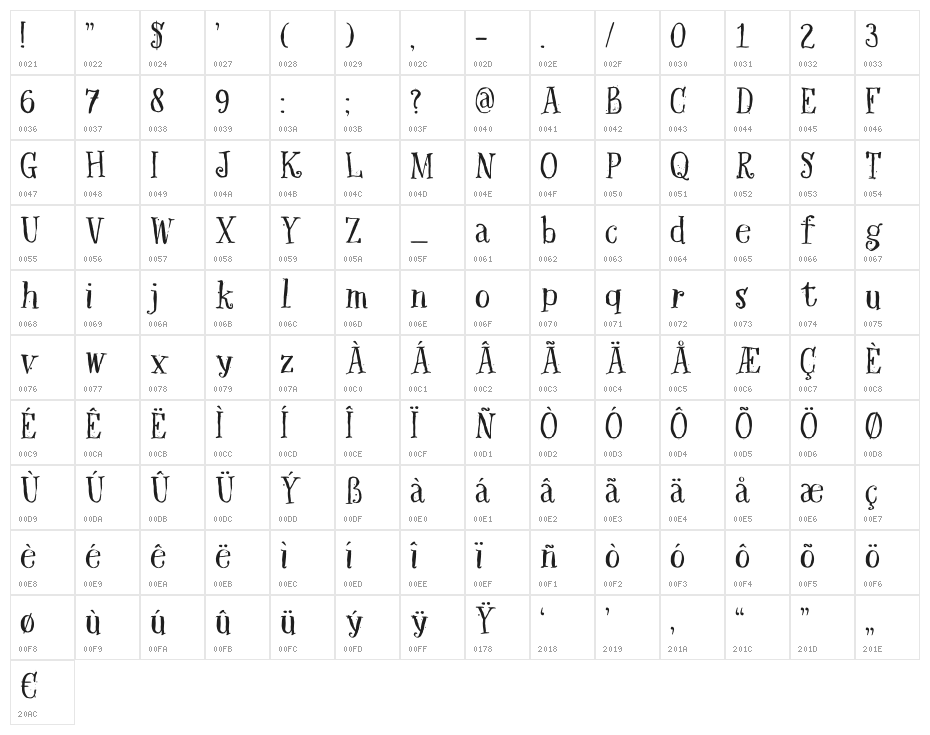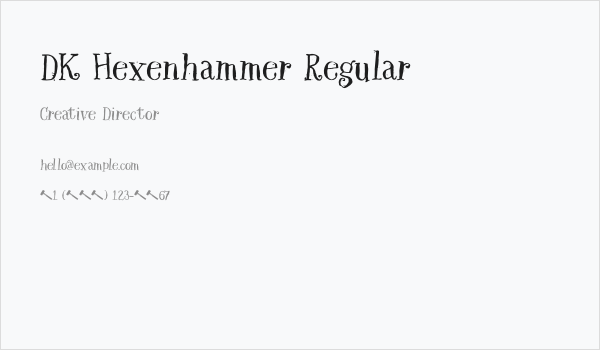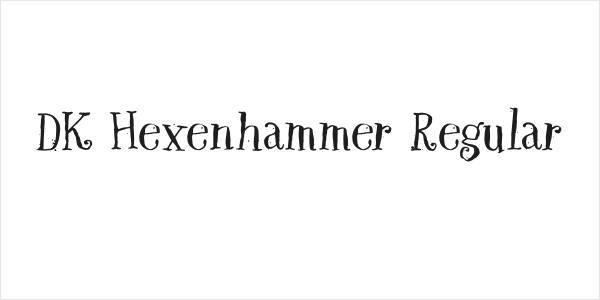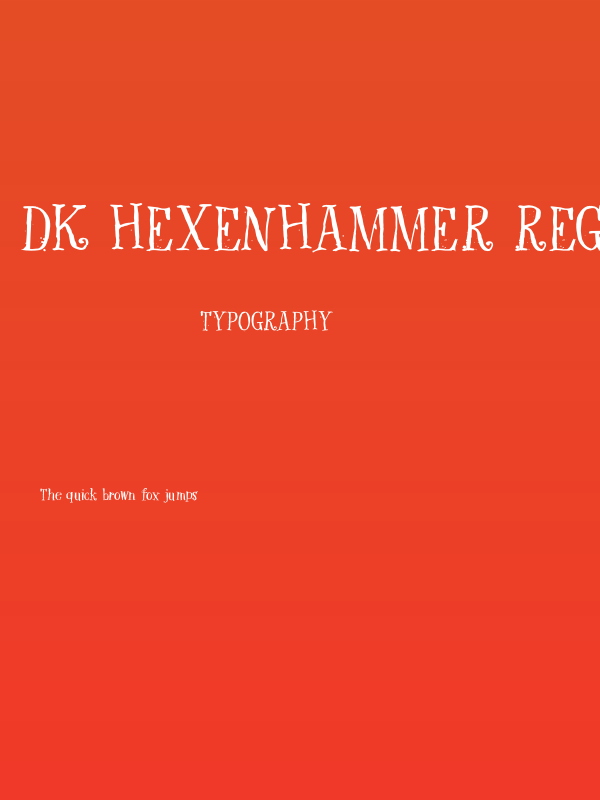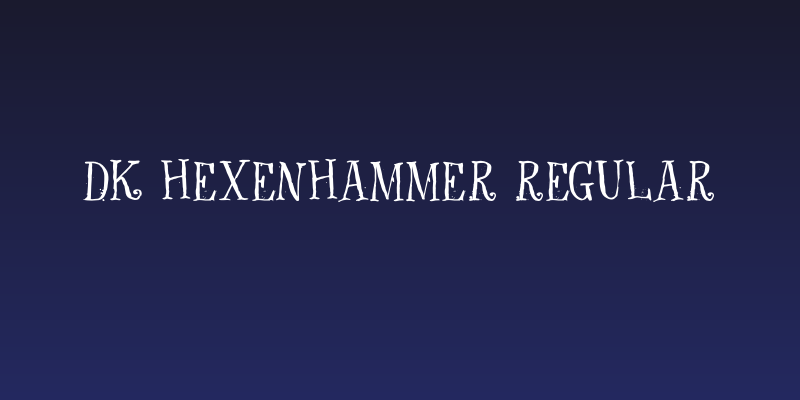
DK Hexenhammer Regular Font
DK Hexenhammer Regular Description
This font features a distinctive, rugged style with a hand-drawn appearance. The characters exhibit irregular edges and varying stroke thickness, giving it a distressed and vintage feel. The uppercase letters are bold and prominent, while the lowercase letters maintain a consistent style with slight variations in height and width. Numbers are uniquely styled with a similar distressed look, and special characters include symbols that match the overall aesthetic. The font's design is reminiscent of old, weathered typefaces, making it ideal for projects that require a rustic or historical touch.
| Use Case | Headlines, Logos, Artistic projects |
| Proposed Projects | Ideal for vintage posters, historical themed events, rustic branding, and artistic projects requiring a distressed look. |